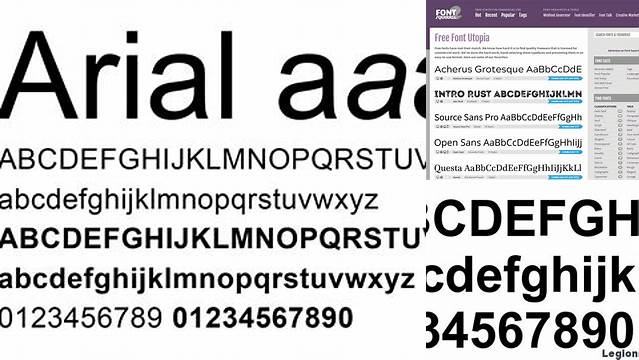
Download Arial Bold Font: Your Ultimate Guide
Hey guys! Are you looking to download Arial Bold font? You've landed in the right spot! Arial Bold is a classic and versatile font that's perfect for a wide range of projects, from professional documents to eye-catching designs. In this guide, we'll dive deep into everything you need to know about Arial Bold, including where to download it, how to use it effectively, and even some cool alternatives. So, let's get started!
1. What is Arial Bold Font?
Before we jump into the download Arial Bold font process, let's quickly understand what makes this font so special. Arial Bold is a sans-serif typeface known for its clean lines and excellent readability. It's a bolder version of the regular Arial font, which gives your text extra emphasis and visual impact. Its simplicity makes it incredibly versatile, suitable for headings, body text, and even logos. Think of Arial Bold as that reliable friend who’s always there to make your words stand out. When considering to download Arial Bold font, you're choosing a font that's trusted by designers and professionals globally for its clarity and impact.
3. The Importance of Using Arial Bold in Design
Why is it so important to download Arial Bold font for your design projects? Arial Bold's strong, clear appearance makes it ideal for grabbing attention. Whether you're creating a poster, a website header, or a presentation, using Arial Bold can help your key messages pop. It’s also highly legible, which means your audience can easily read and understand your content. In a world where visual communication is king, Arial Bold is a valuable asset in your design toolkit. It strikes a balance between professionalism and modernity, making it a go-to choice for designers.
4. Arial Bold vs. Arial Regular: Key Differences
So, what's the real difference between Arial Bold and Arial Regular? Well, as the name suggests, Arial Bold is the bolder, more assertive version. It has thicker strokes, which give it a more pronounced appearance compared to the regular version. This makes it perfect for headings, subheadings, and any text you want to emphasize. While Arial Regular is great for body text and longer paragraphs, Arial Bold shines when you need to make a statement. Deciding to download Arial Bold font often comes down to understanding these subtle yet significant differences.
9. Arial Bold in Adobe Illustrator
Similarly, using Arial Bold in Adobe Illustrator is a smooth experience. After the download Arial Bold font and installation, Illustrator will recognize it automatically. You can use Arial Bold for logos, typography-based designs, and any other text elements in your artwork. Its clean and bold appearance makes it a reliable choice for professional designs. The fact that you can easily download Arial Bold font and use it in Adobe Illustrator adds to its appeal.
30. The Future of Arial Bold
Arial Bold has been a staple in design for decades, and it's likely to remain a popular choice for years to come. Its timeless appeal and versatility ensure its continued relevance. Whether you download Arial Bold font today or years from now, you're choosing a classic that will always be in style.
So, there you have it! Everything you need to know about Arial Bold, from where to download Arial Bold font to how to use it effectively in your projects. Go ahead, give it a try and see how this classic font can enhance your designs!